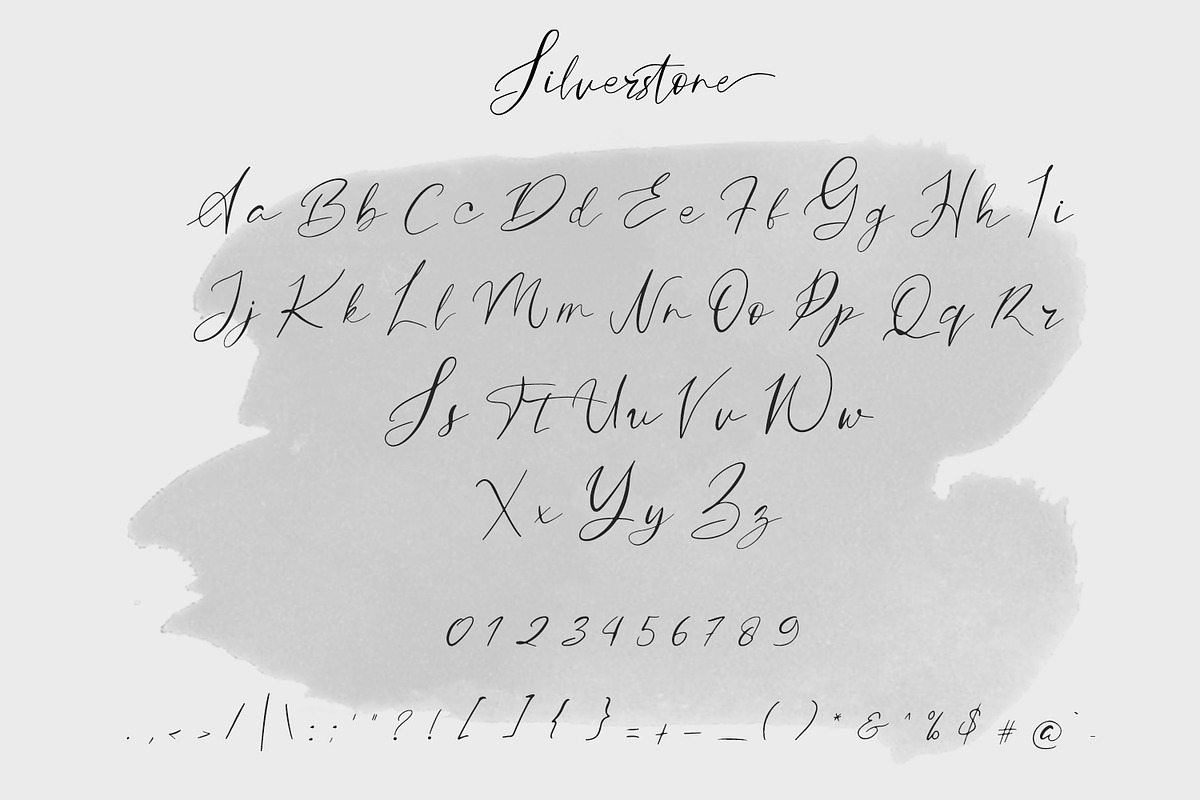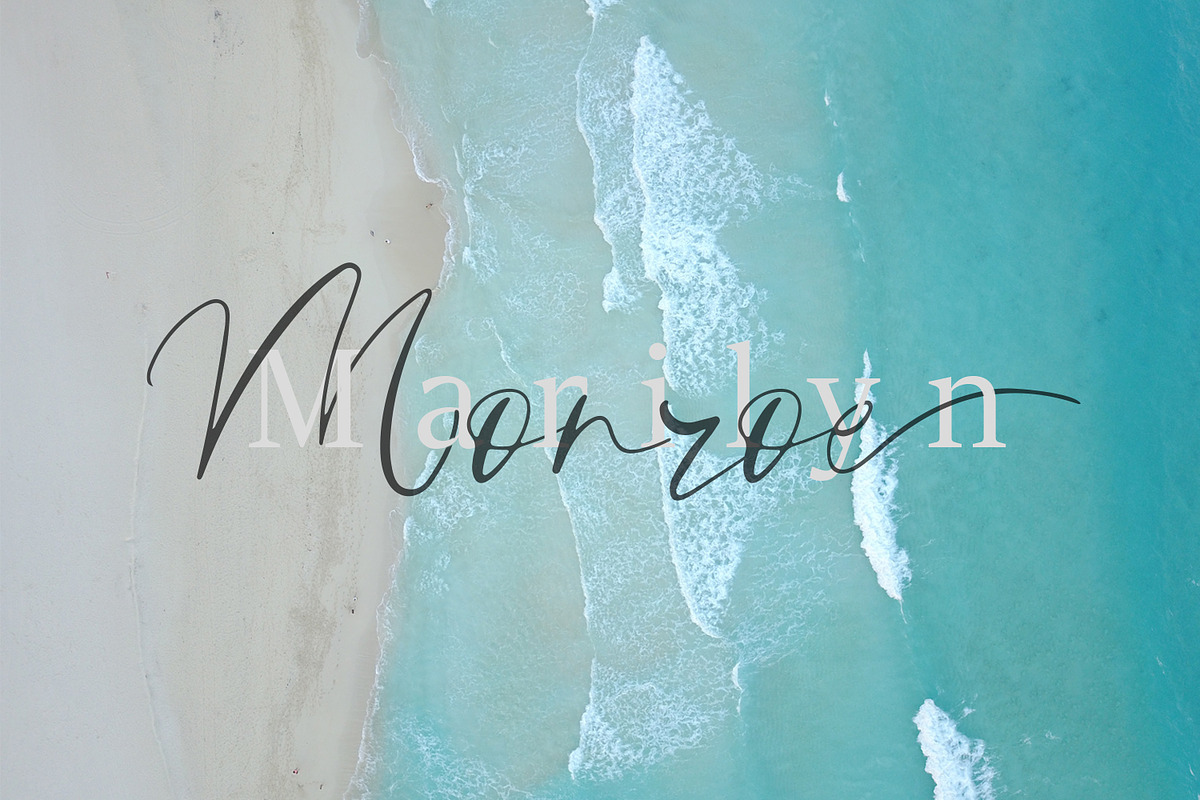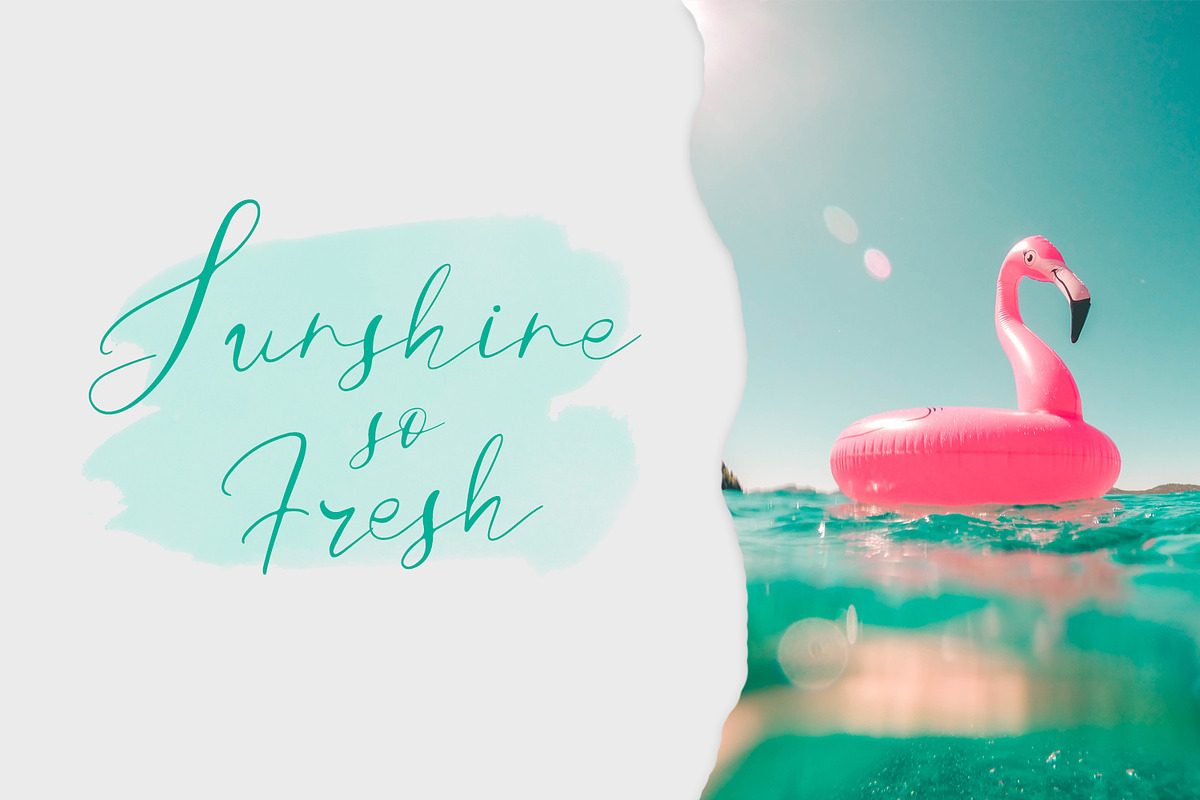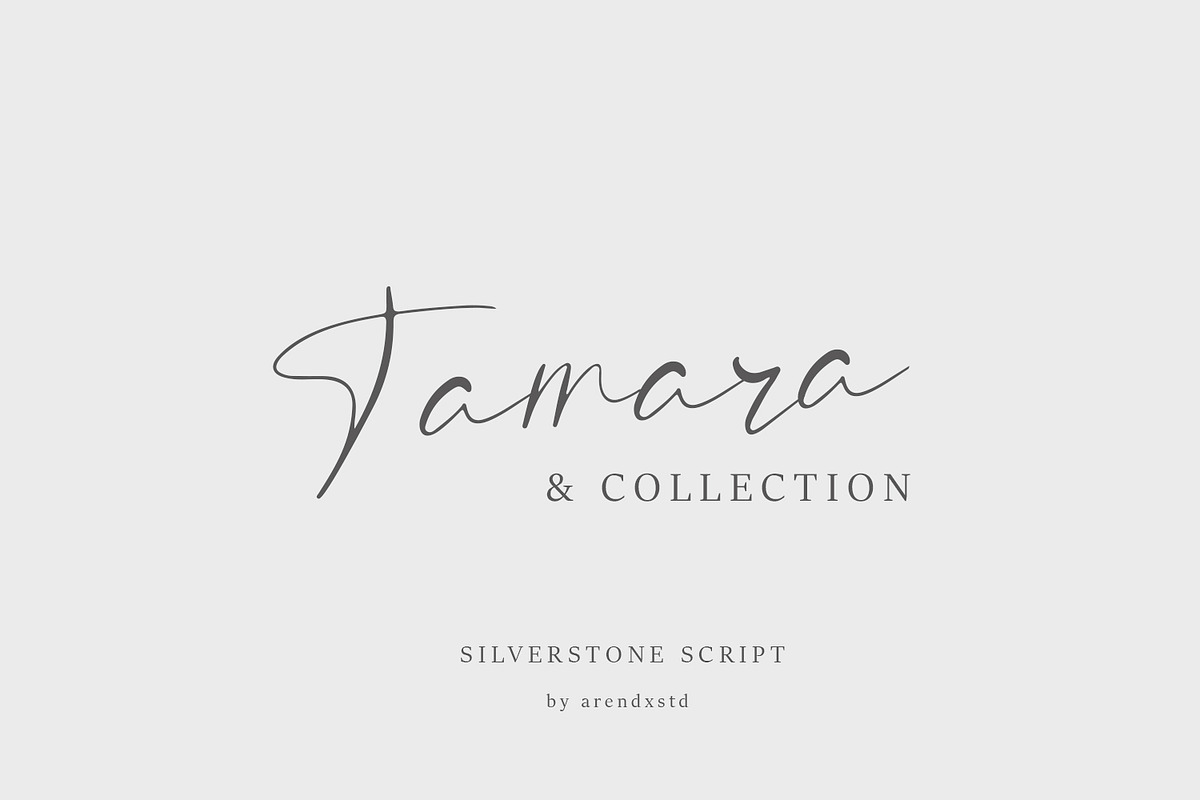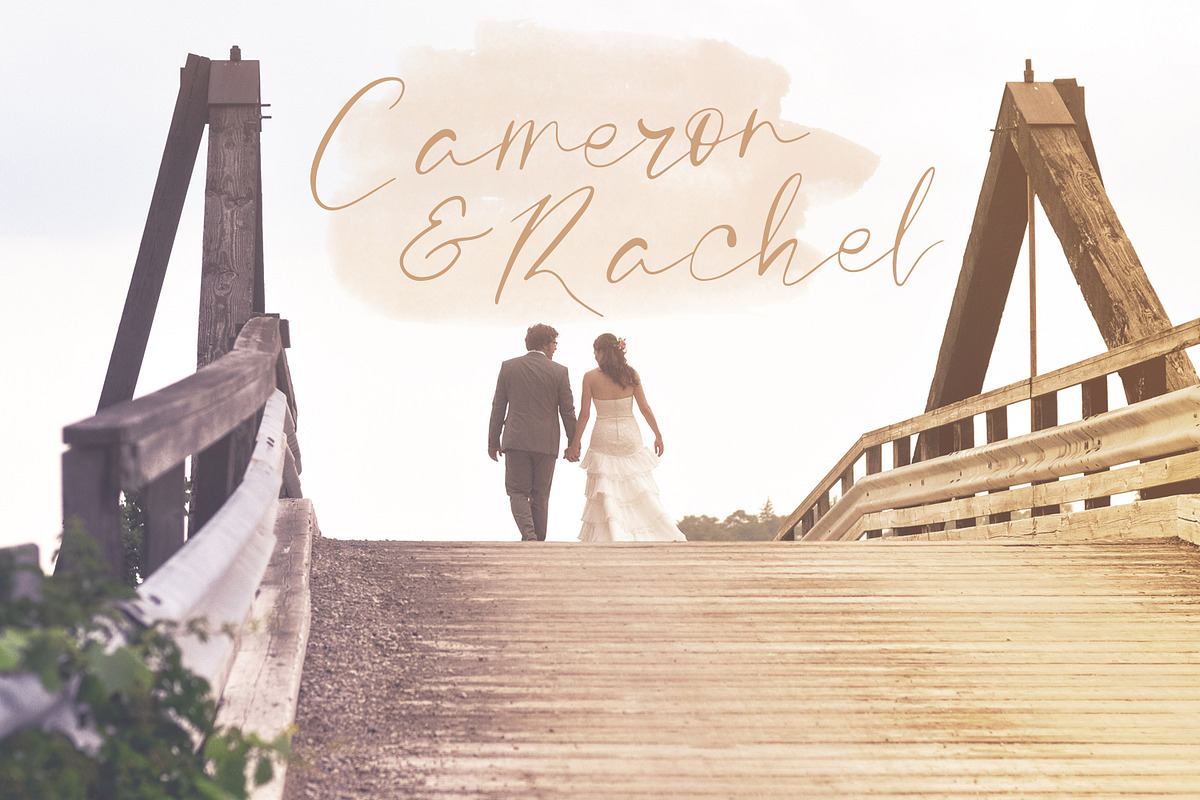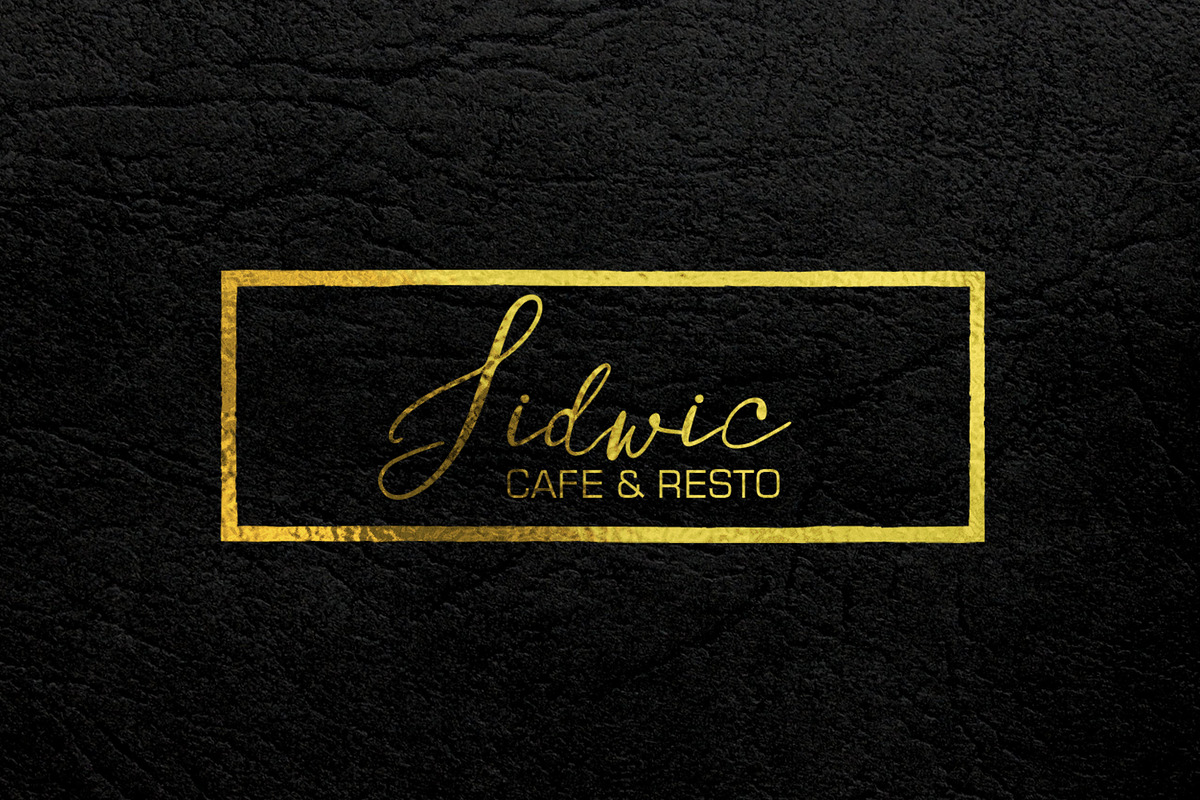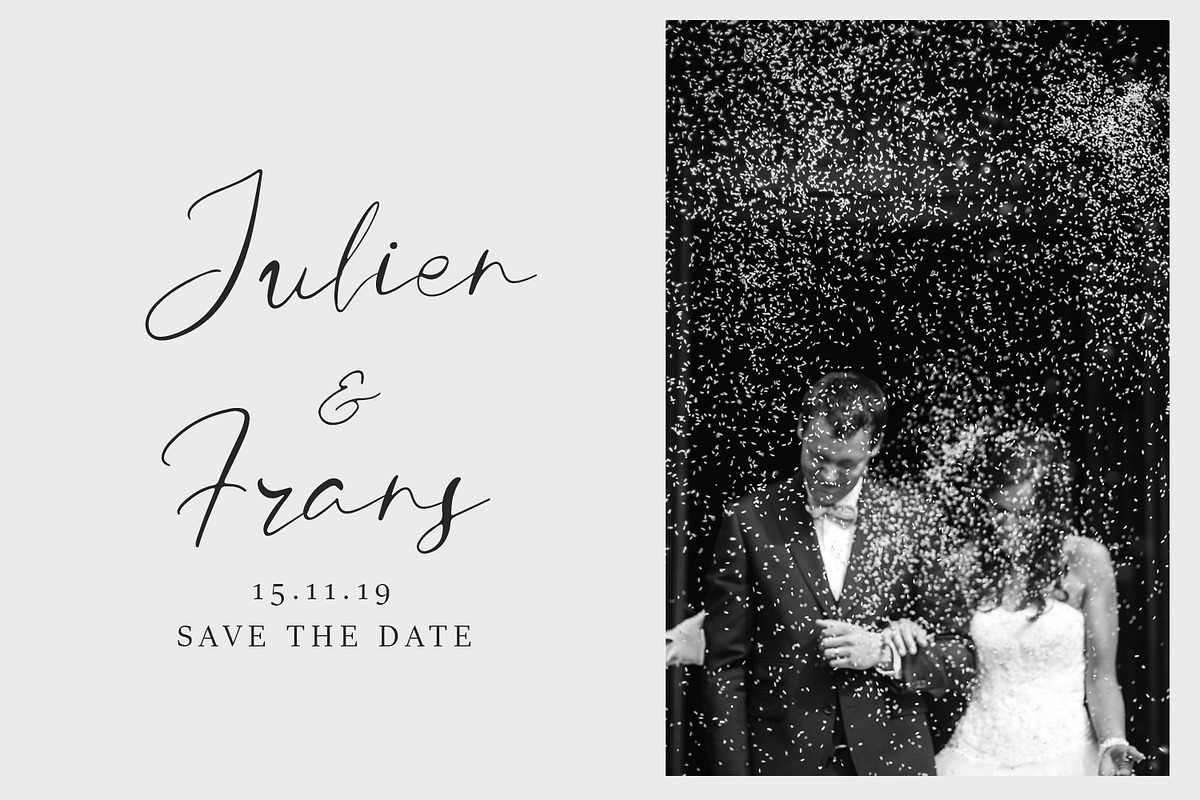
Silverstone - Calligraphy Font
introducing Silverstone Luxury script font, using style hand made with brushing. Silverstone a beautiful for wedding card design, logotype, website header, fashion design and any more.
Silverstone - Calligraphy Font by Arendxstudio fits naturally into Branding, posters, packaging, typography.